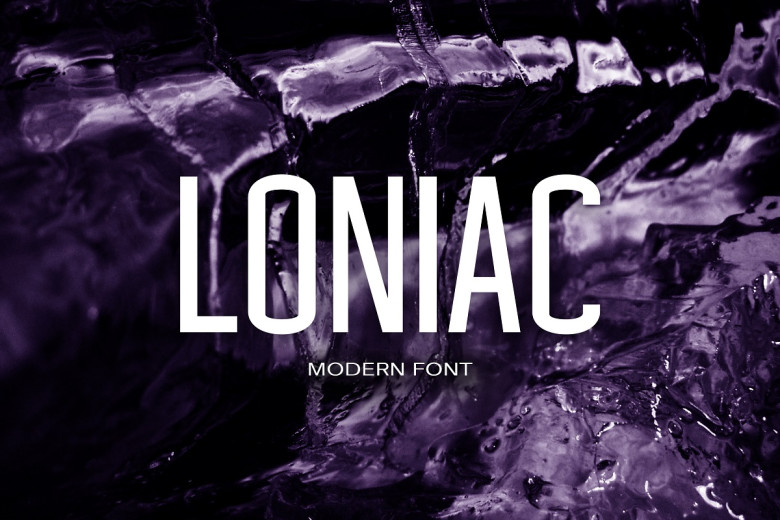
Loniac Font
Loniac font is an elegant and modern sans serif font with an unmistakable style. Take inspiration from its sleek aesthetic – ideal for logos and branding purposes such as travel promotion layout magazines and beauty products, packaging quotes or simply text overlaying any image background.
Loniac Sans Serif Font